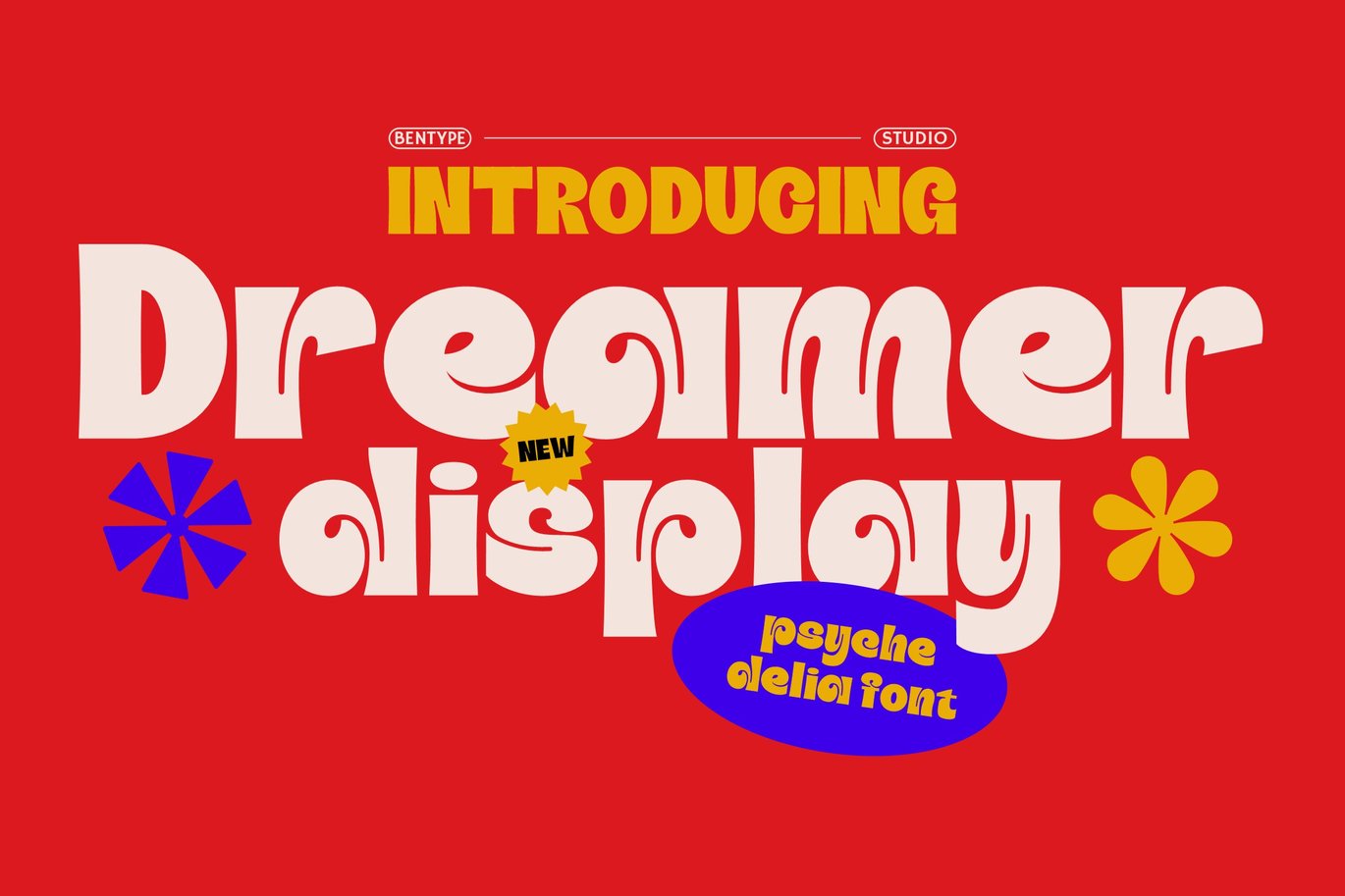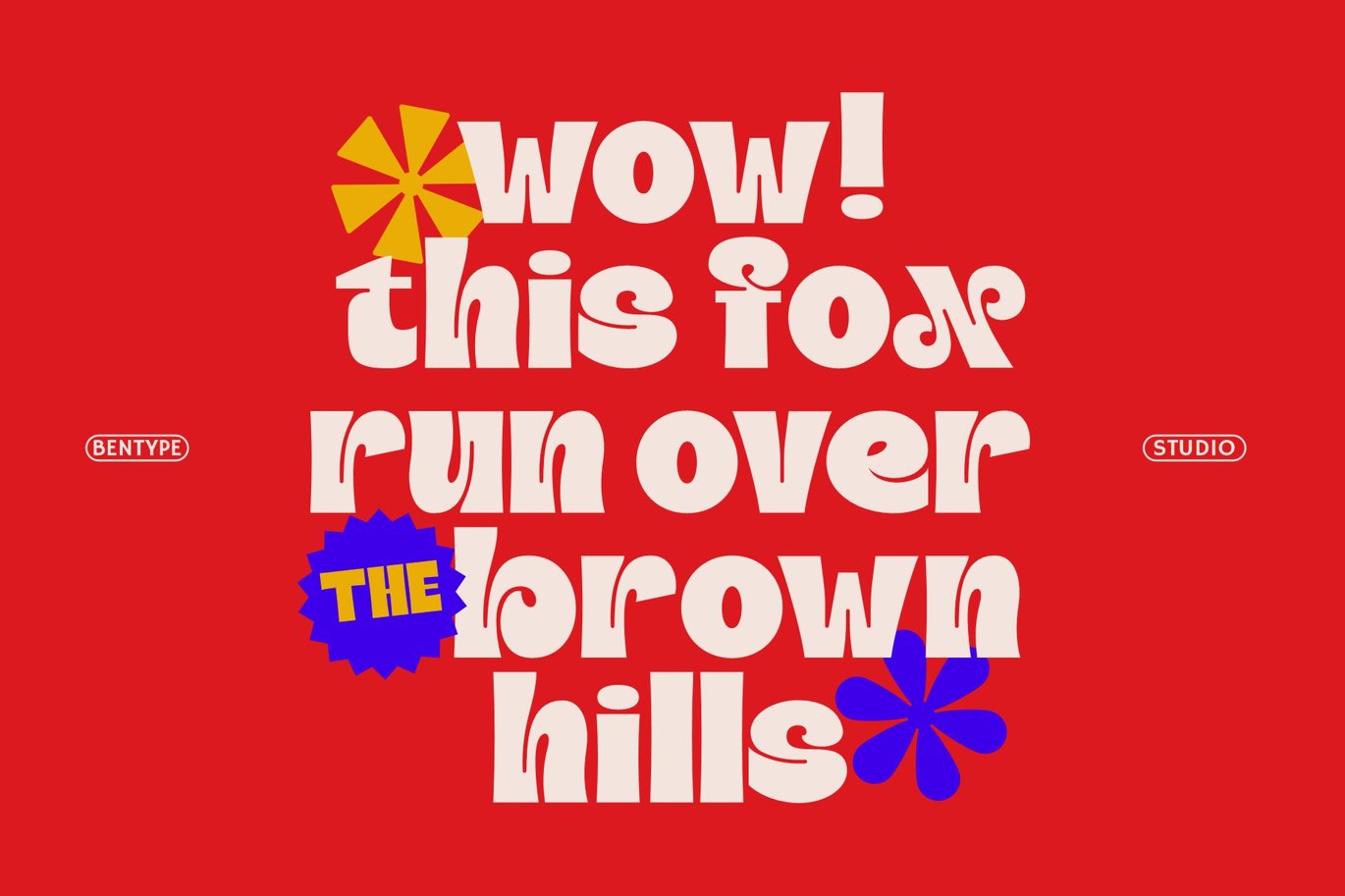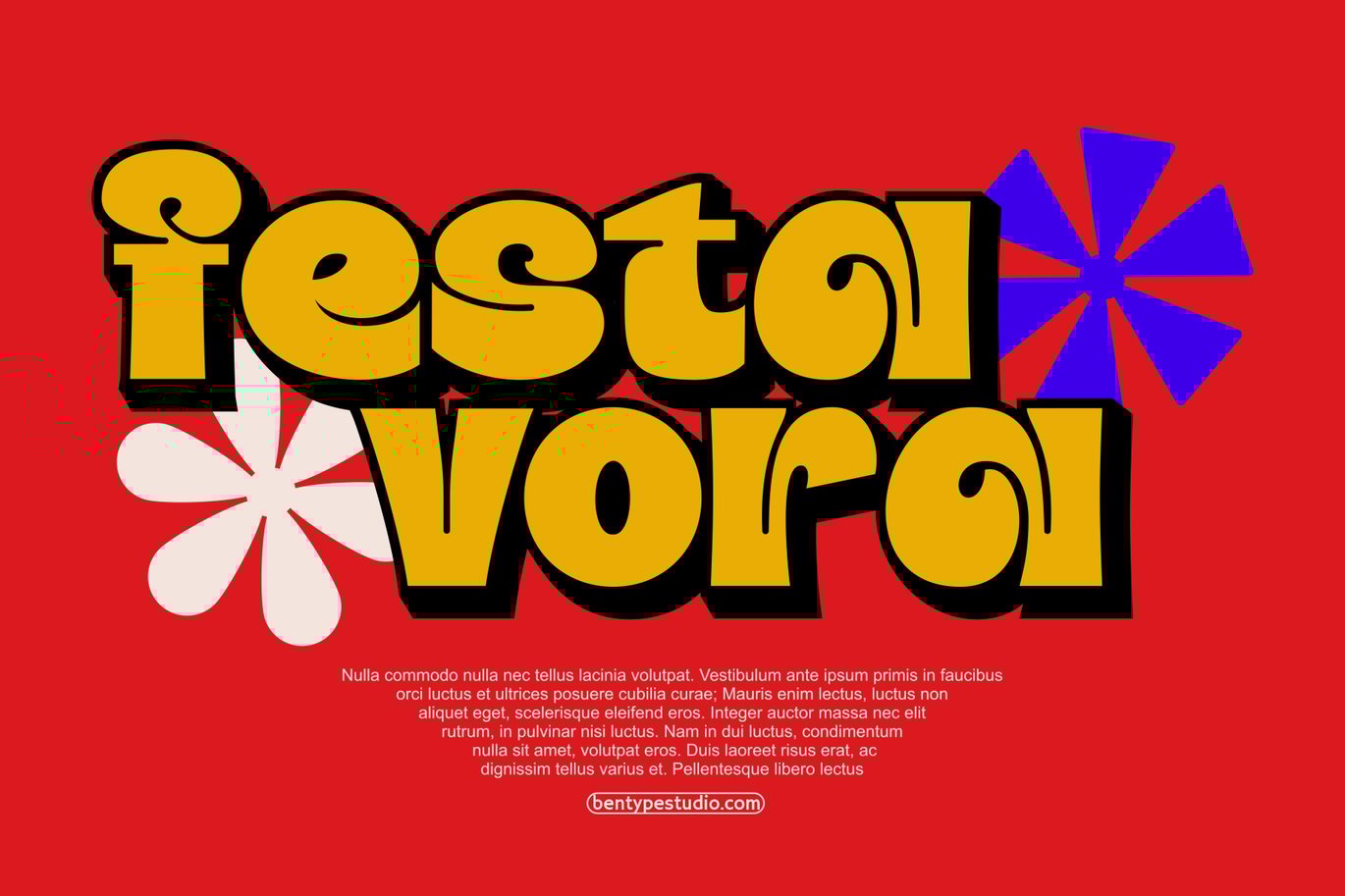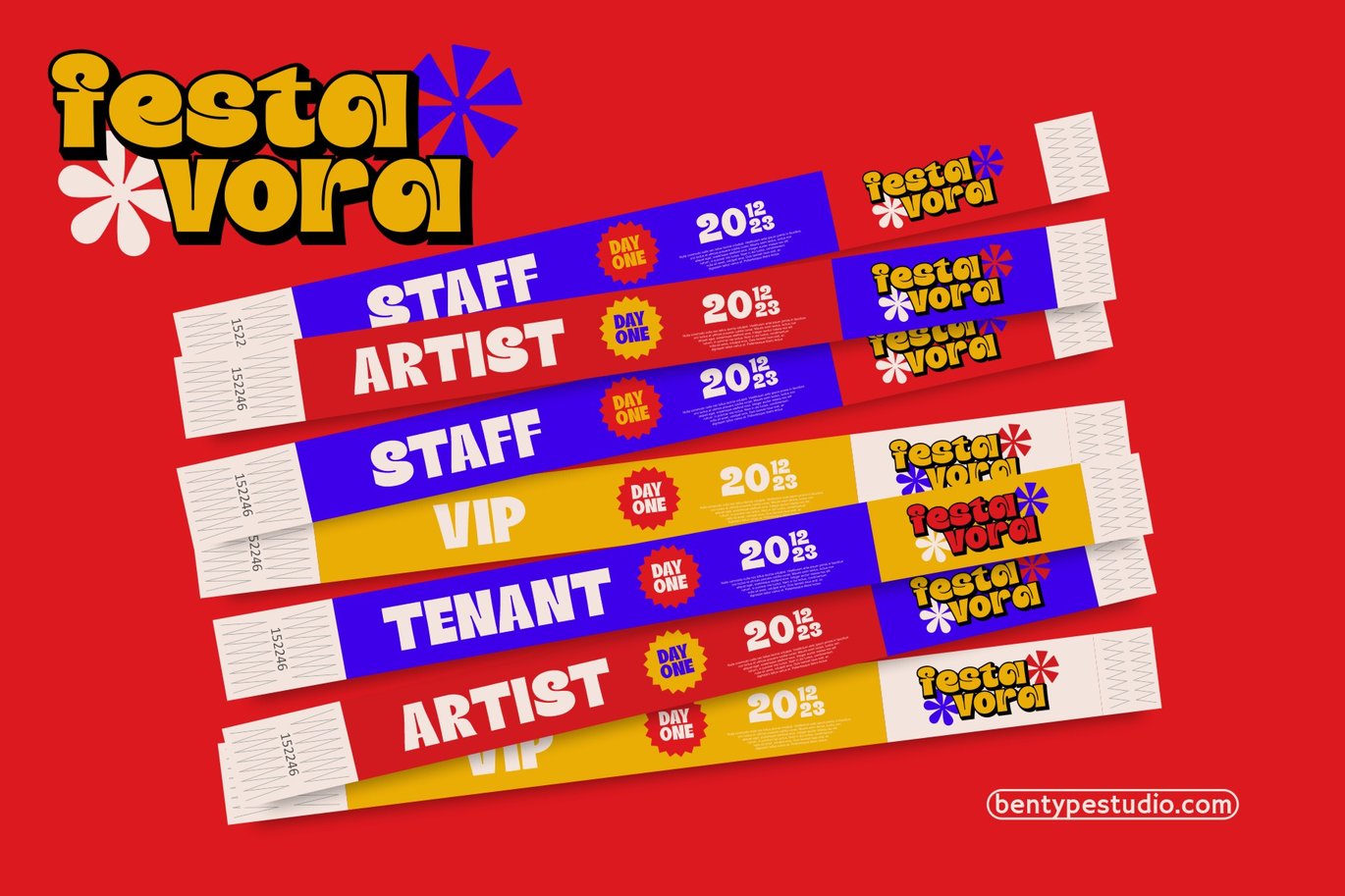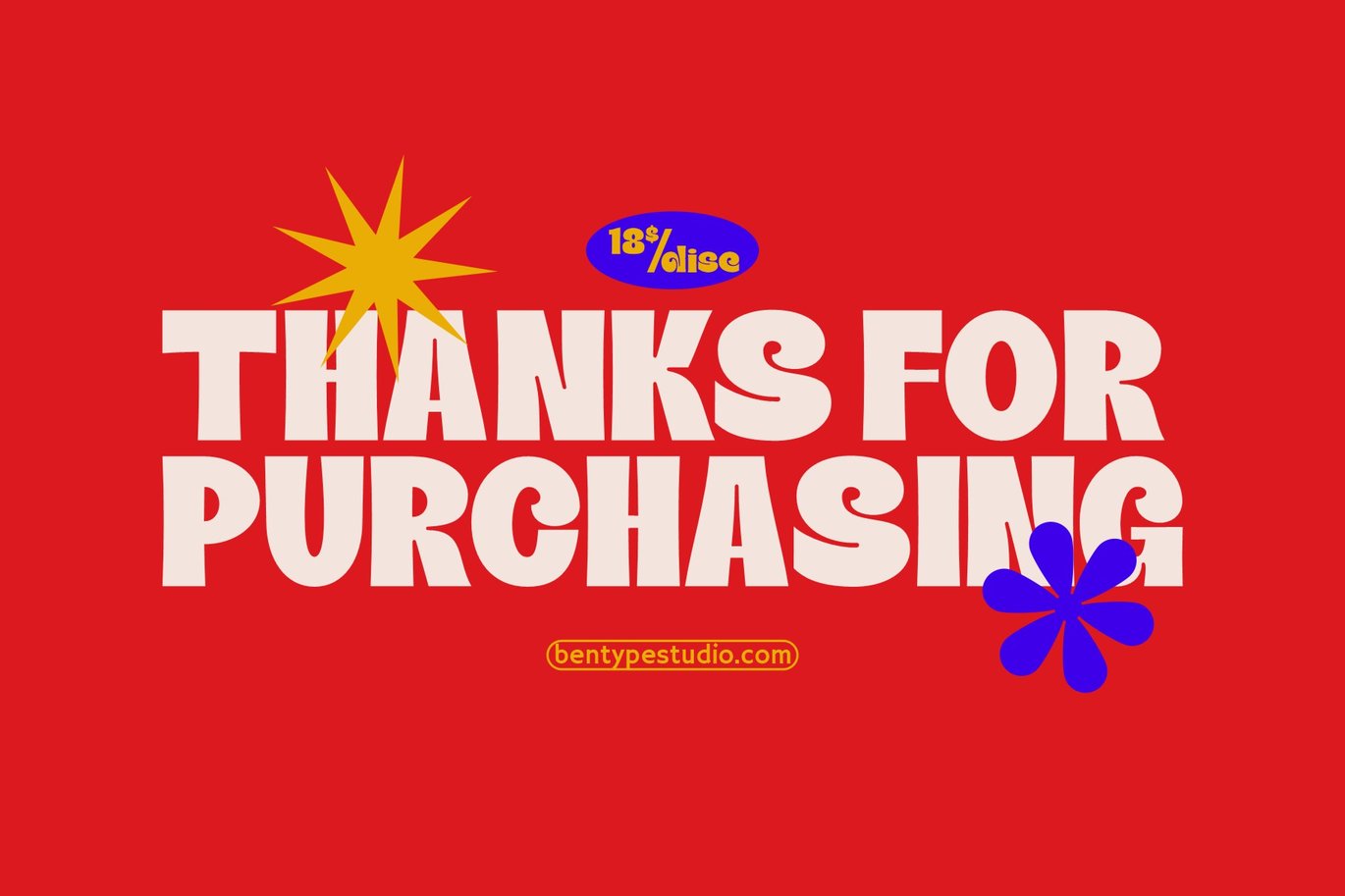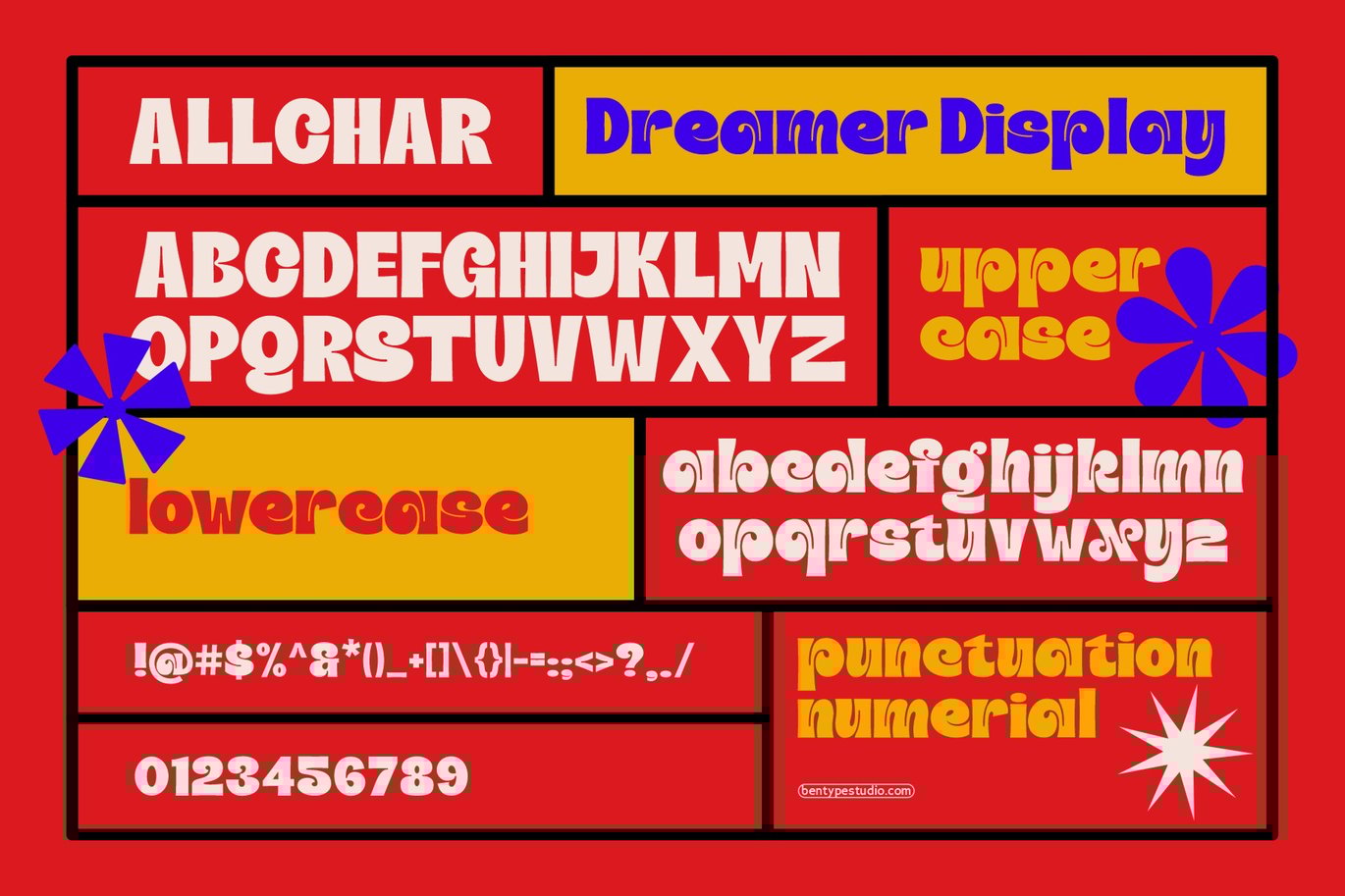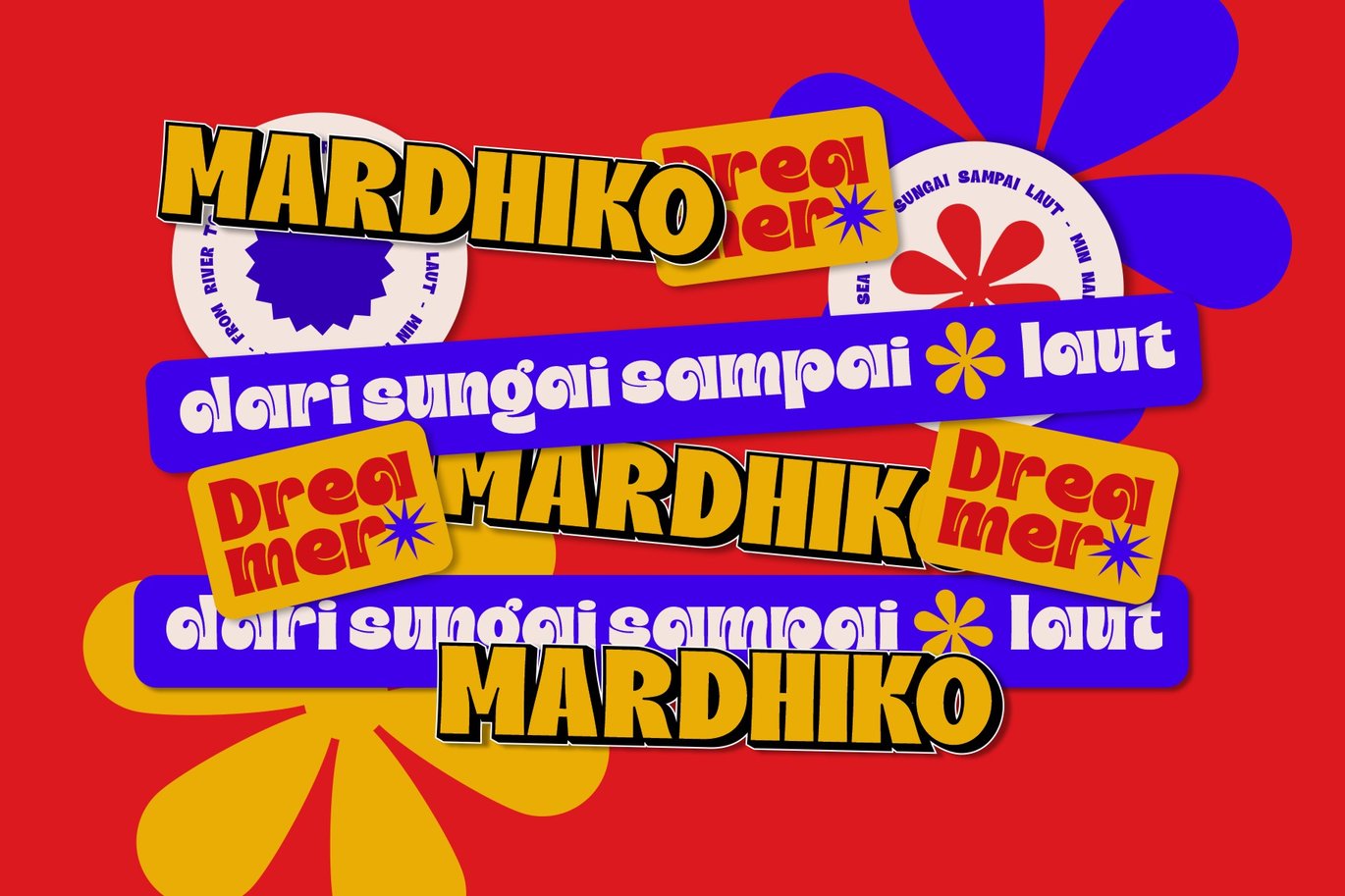
Dreamer – Psychedelia Display Font
Dreamer – Psychedelia display fonts are a vivid reflection of the vibrant and mind-bending aesthetics associated with the psychedelic movement of the 1960s and 1970s. These fonts embody a sense of experimentation, free expression, and unconventional design, often inspired by hallucinatory experiences, art, and music of that era.
Dreamer – Psychedelia display font can be captivating for artistic and expressive projects, but readability might sometimes be sacrificed for the sake of visual impact. As a result, they are often more suited for display purposes, logos, posters, or artistic endeavors where legibility is not the primary concern.